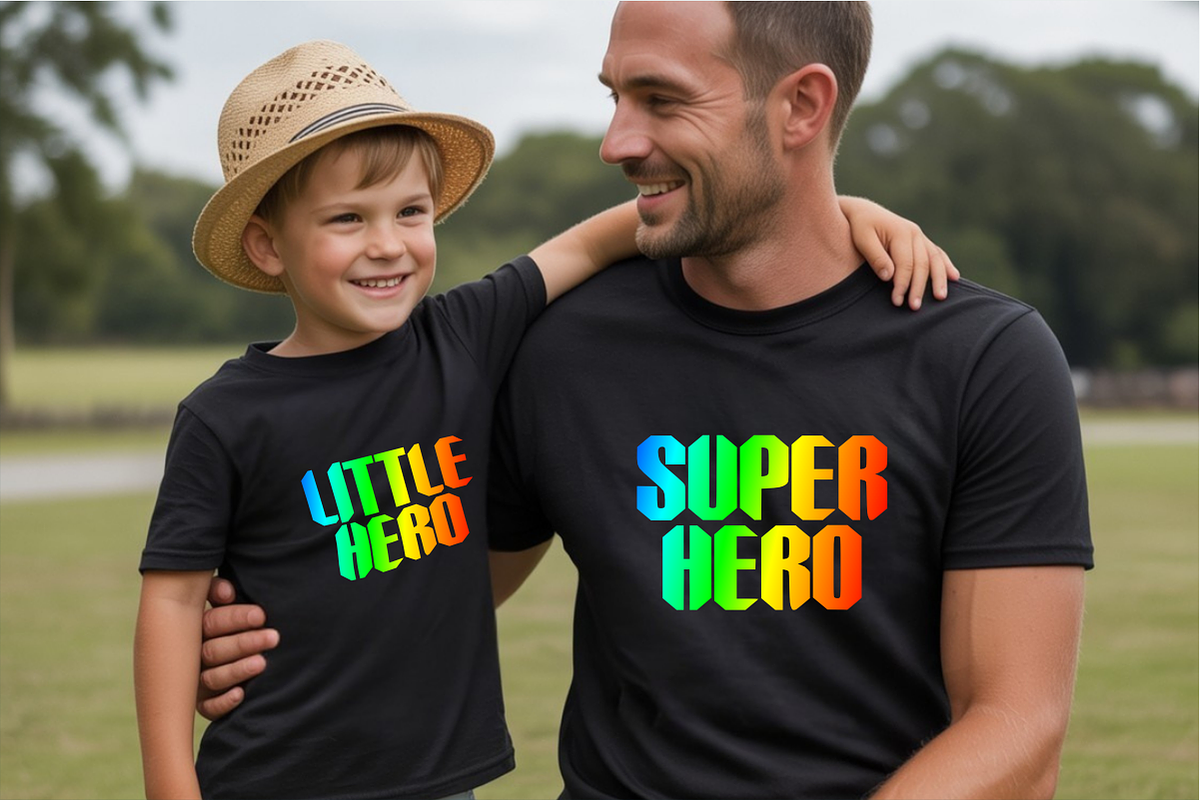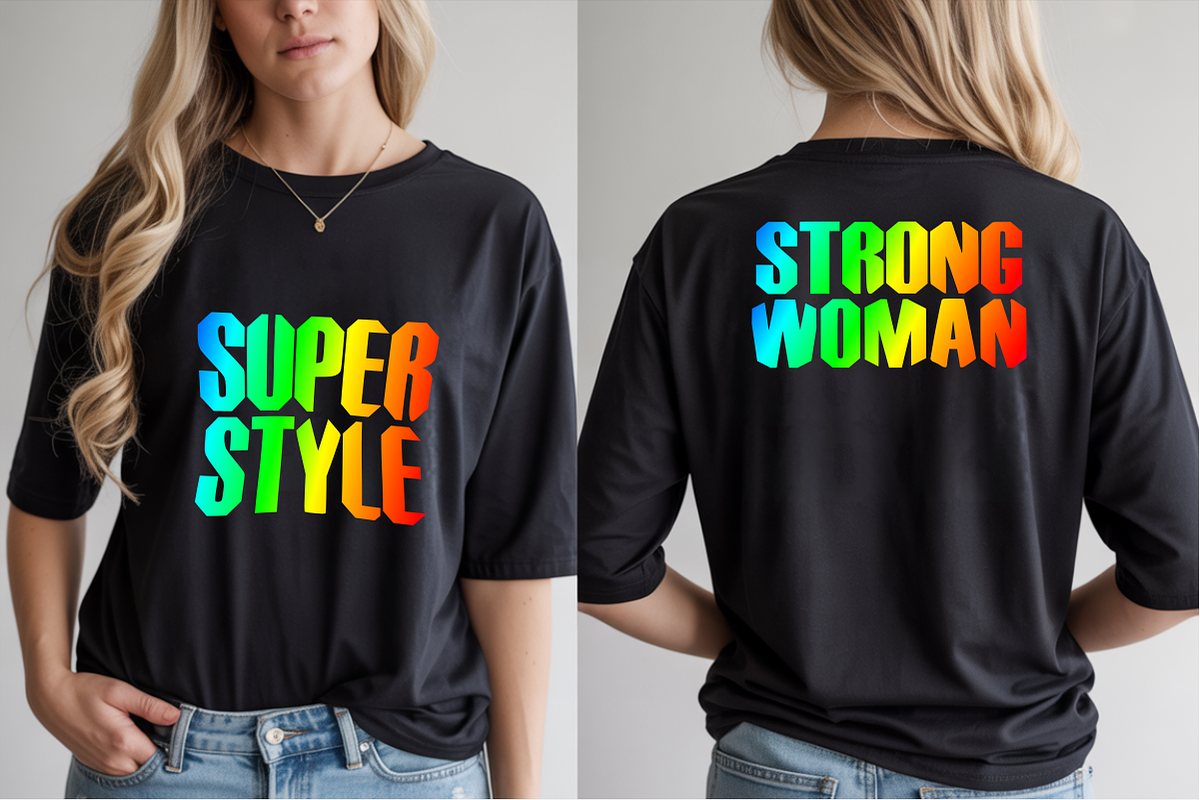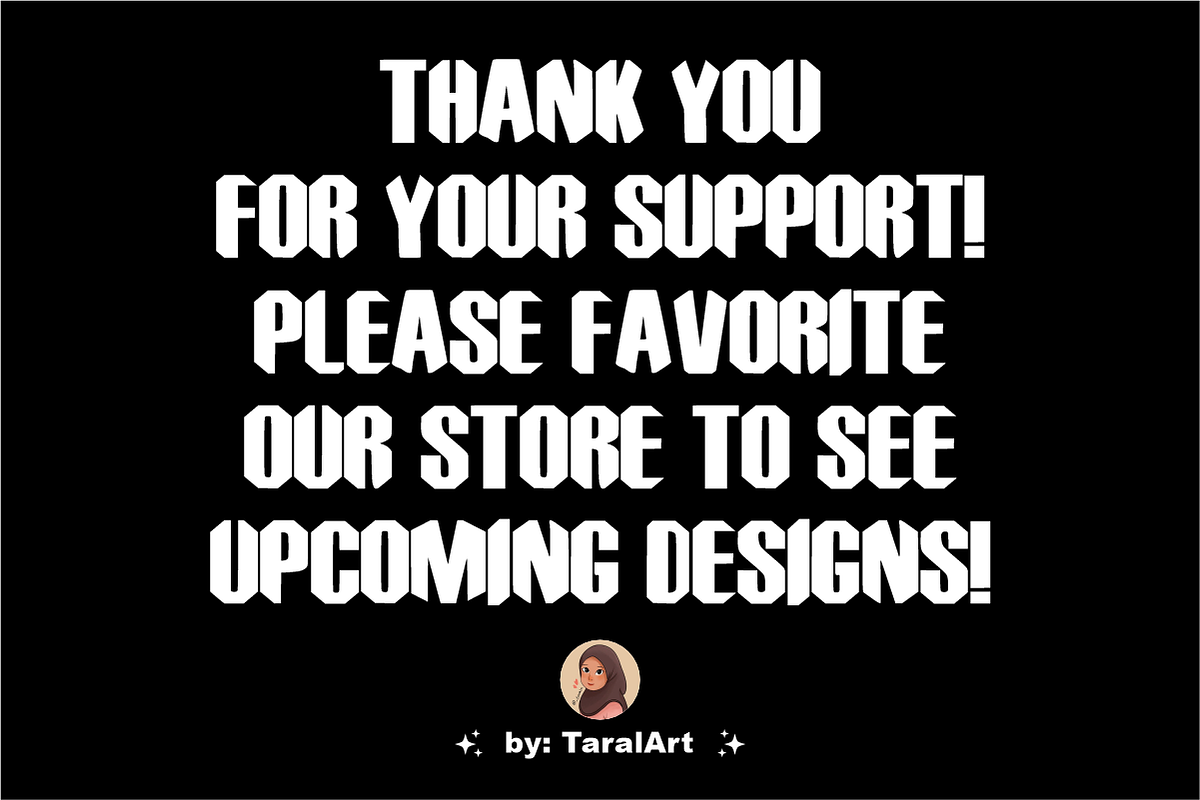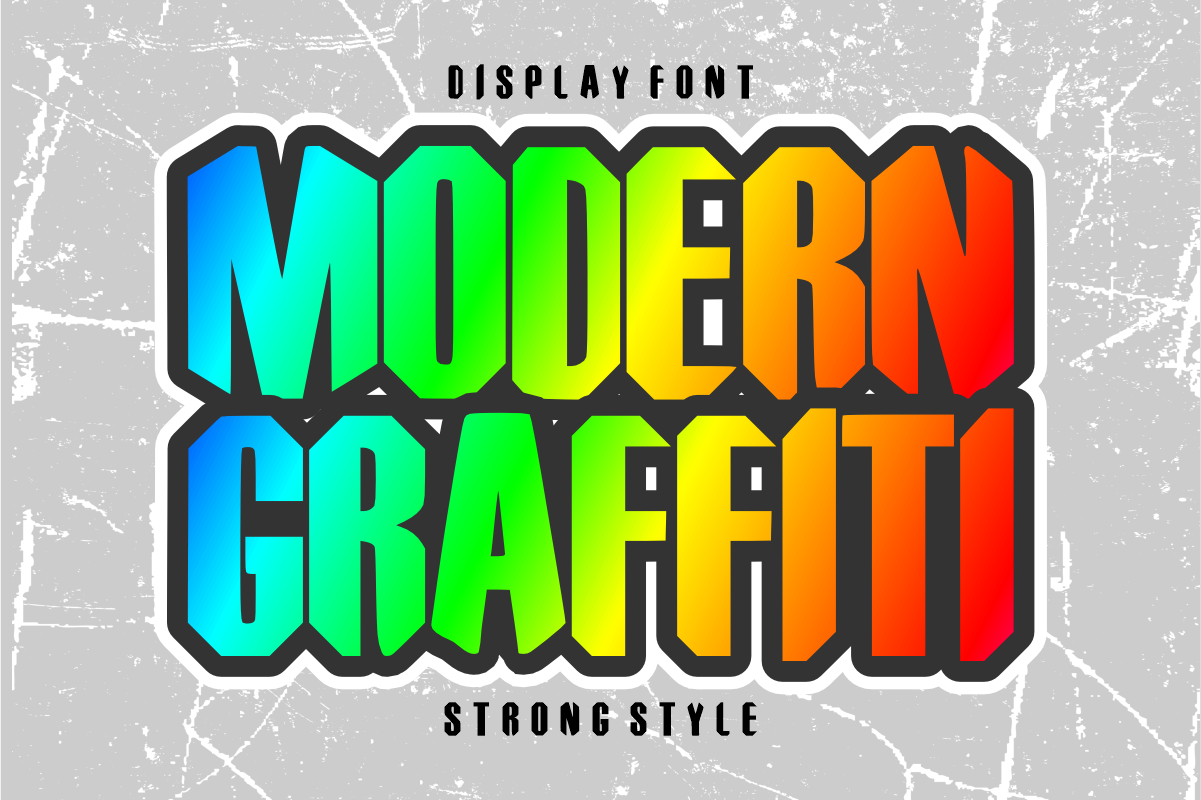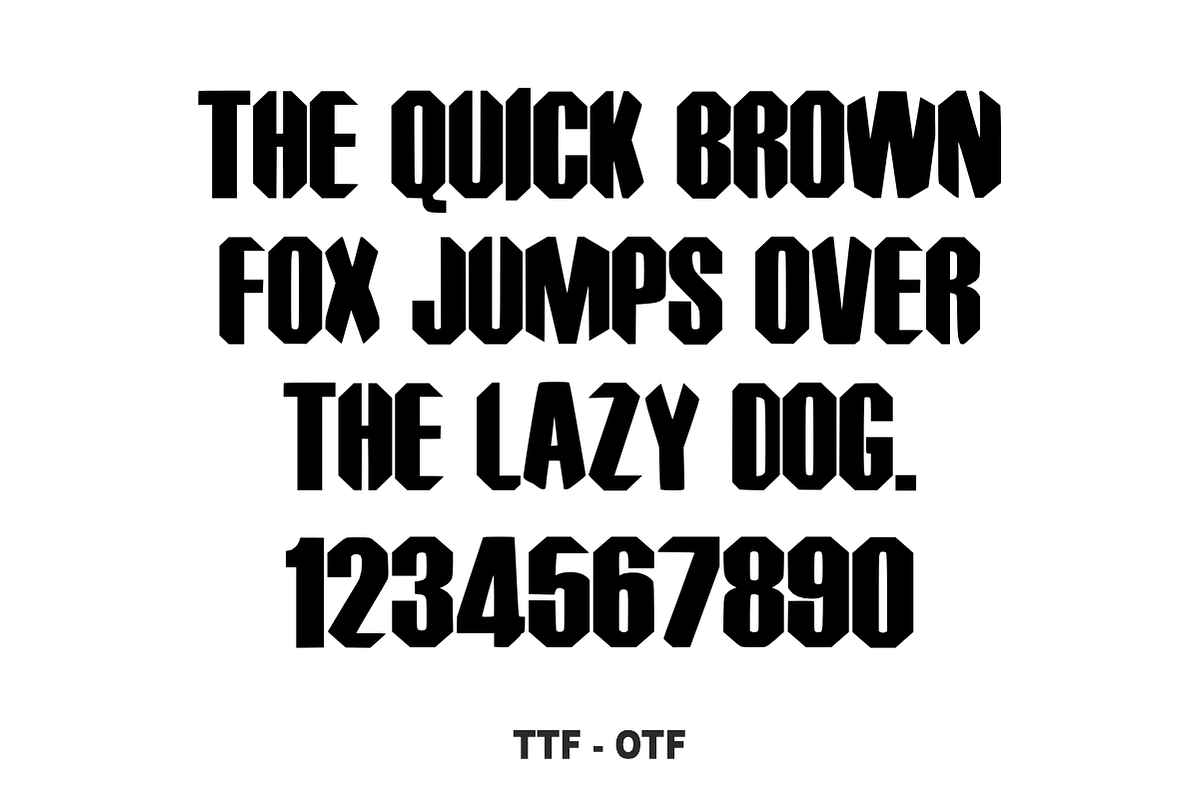
Modern Graffiti- Strong Display Font
Modern Graffiti - Strong Display Font
Modern Graffiti is a bold, tall display font featuring a powerful street-art style with sharp, geometric blocky cuts. Bringing a solid, interlocking "strong style" energy, this high-impact font is perfect for urban branding, edgy apparel, and standout headlines. Every character is cleanly vectorized to guarantee smooth, effortless weeding and cutting on Cricut and Silhouette machines.
Uppercase Character Set
Numbers & Basic Punctuation
Ideal For:
Urban clothing lines, streetwear merchandise, and skate culture designs
Custom die-cut stickers, hip-hop event flyers, and album covers
Bold logotypes, sports branding, and gaming channel graphics
Poster layouts, striking social media headers, and YouTube thumbnails
Product packaging looking for a modern, rebellious, or energetic touch
Cricut, Silhouette, and DIY vinyl crafting projects